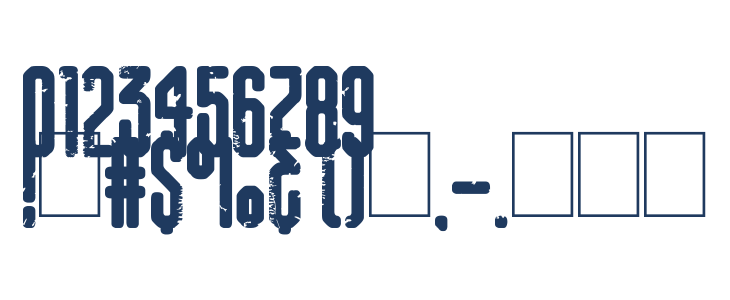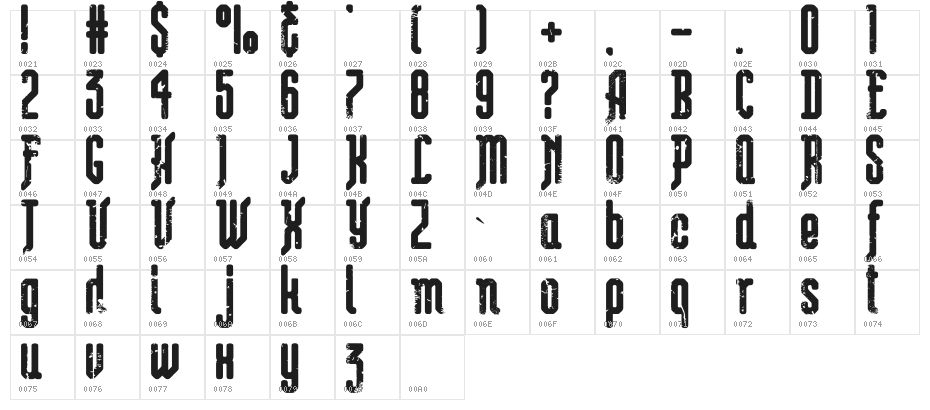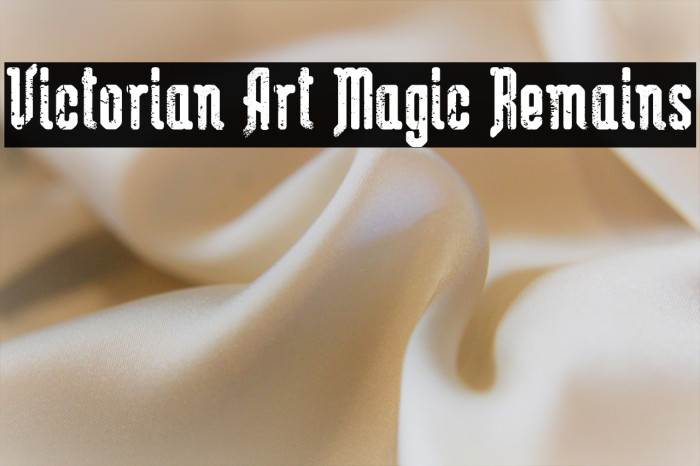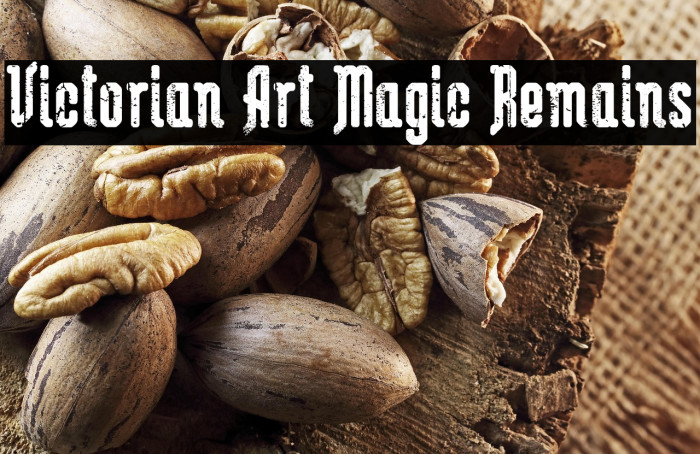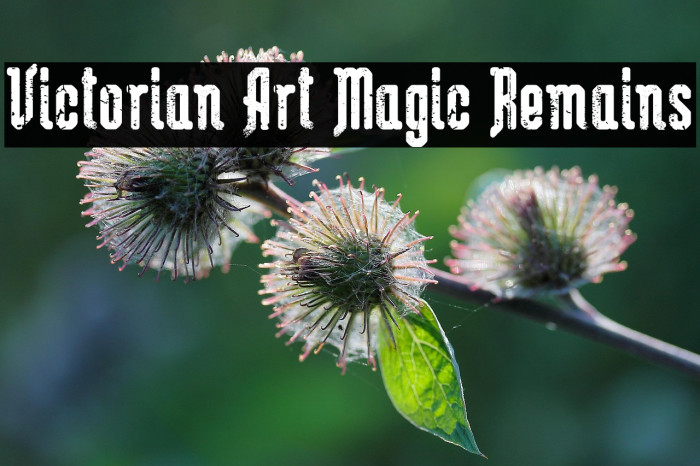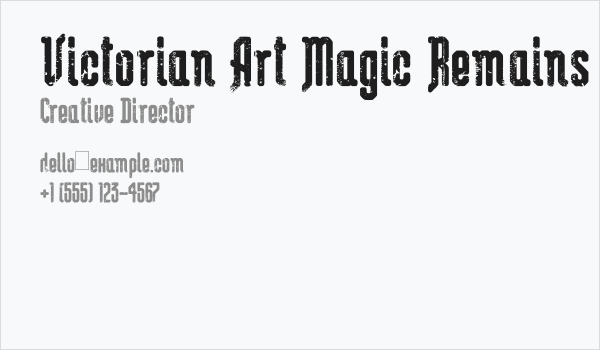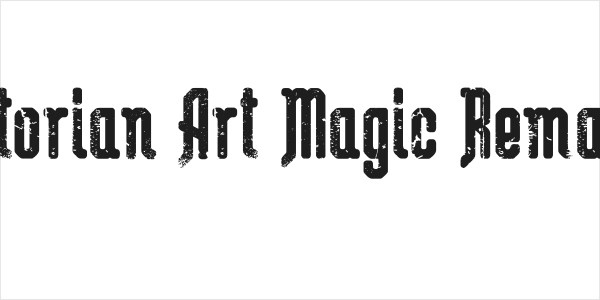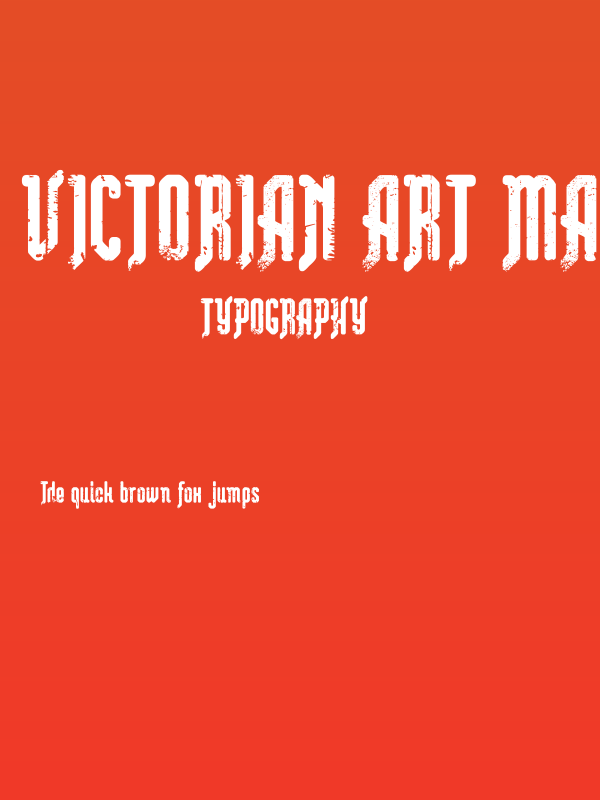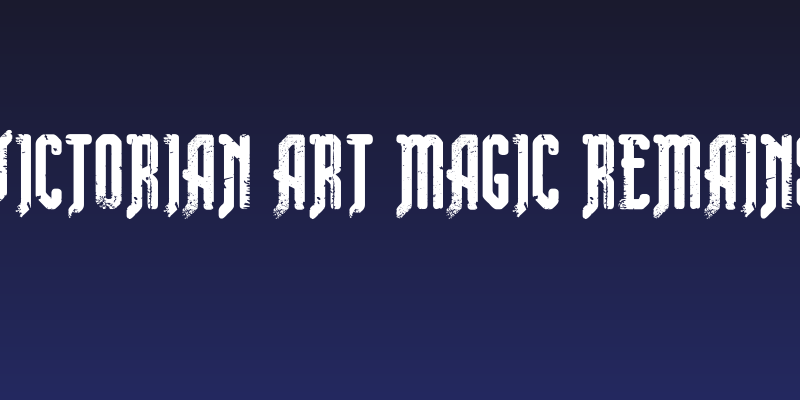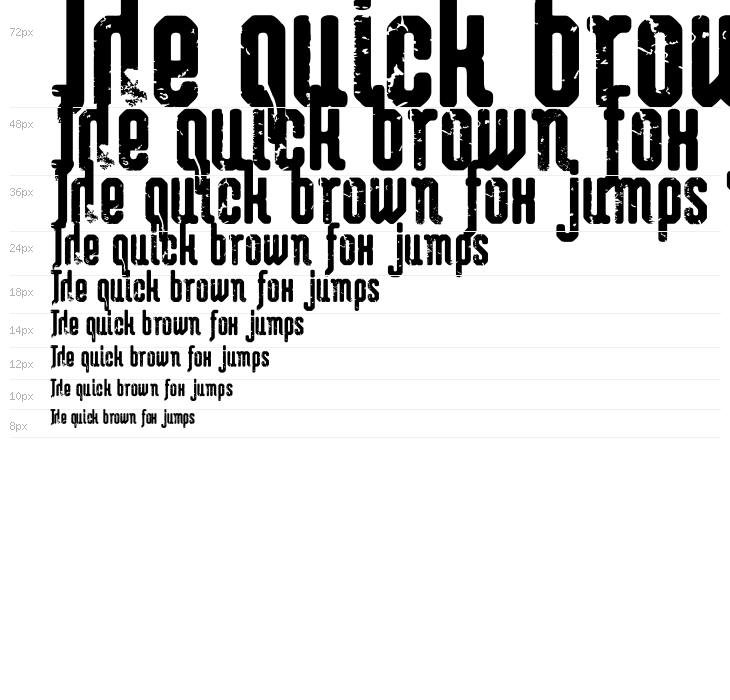
Victorian Art Magic Remains Font
Victorian Art Magic Remains Description
This font features a bold and distressed style, reminiscent of vintage Victorian-era design. The characters are heavily stylized with a textured, worn appearance that adds a sense of history and mystery. The uppercase letters are tall and imposing, while the lowercase letters maintain a consistent style with slightly less height. Numbers and special characters follow the same distressed aesthetic, making the font cohesive across all elements. The overall look is both decorative and impactful, perfect for projects that require a touch of nostalgia and drama.
| Proposed Projects | Ideal for vintage posters, themed event invitations, book covers, and branding that requires a historical or dramatic flair. |